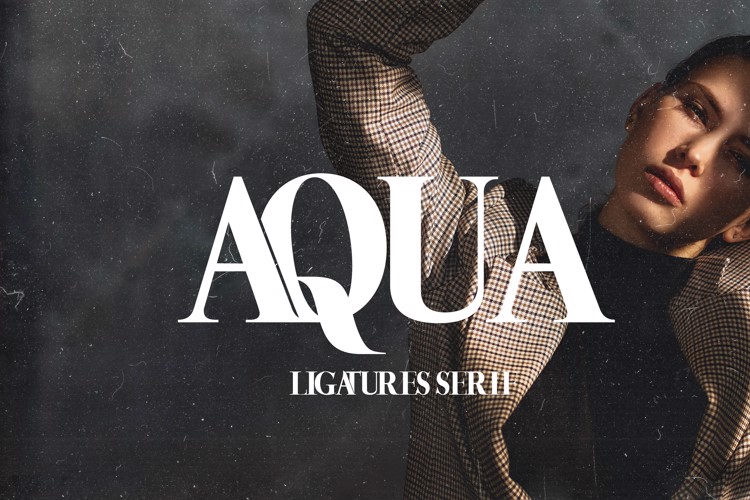
AQUA Font
๐จ Font Name: Aqua by Minimalist Art Studio
๐จ Font Description: Aqua is a ligature-rich serif with multilingual supportโperfect for fashion branding, editorial elegance, and luxury packaging.
โ Complete Latin set + multilingual diacritics
โ Alternates, stylistic sets & ligatures
โ Numbers, small caps, and extended punctuation
โ Bonus italics and family styles